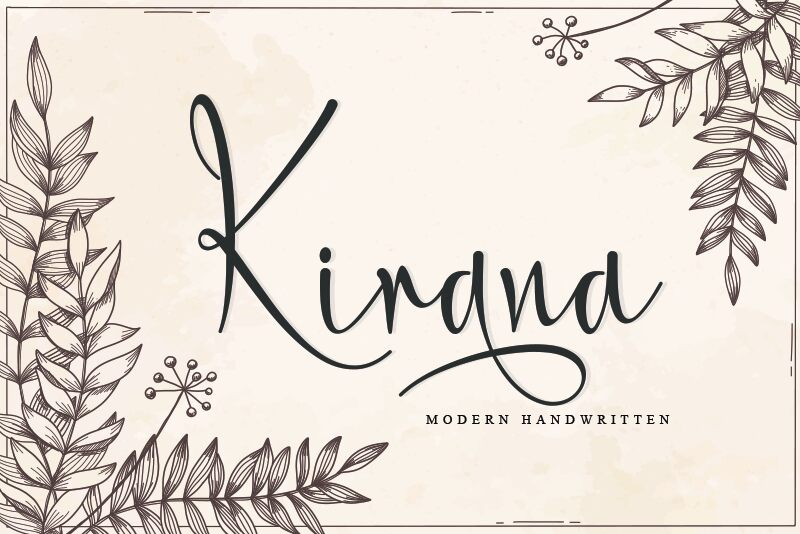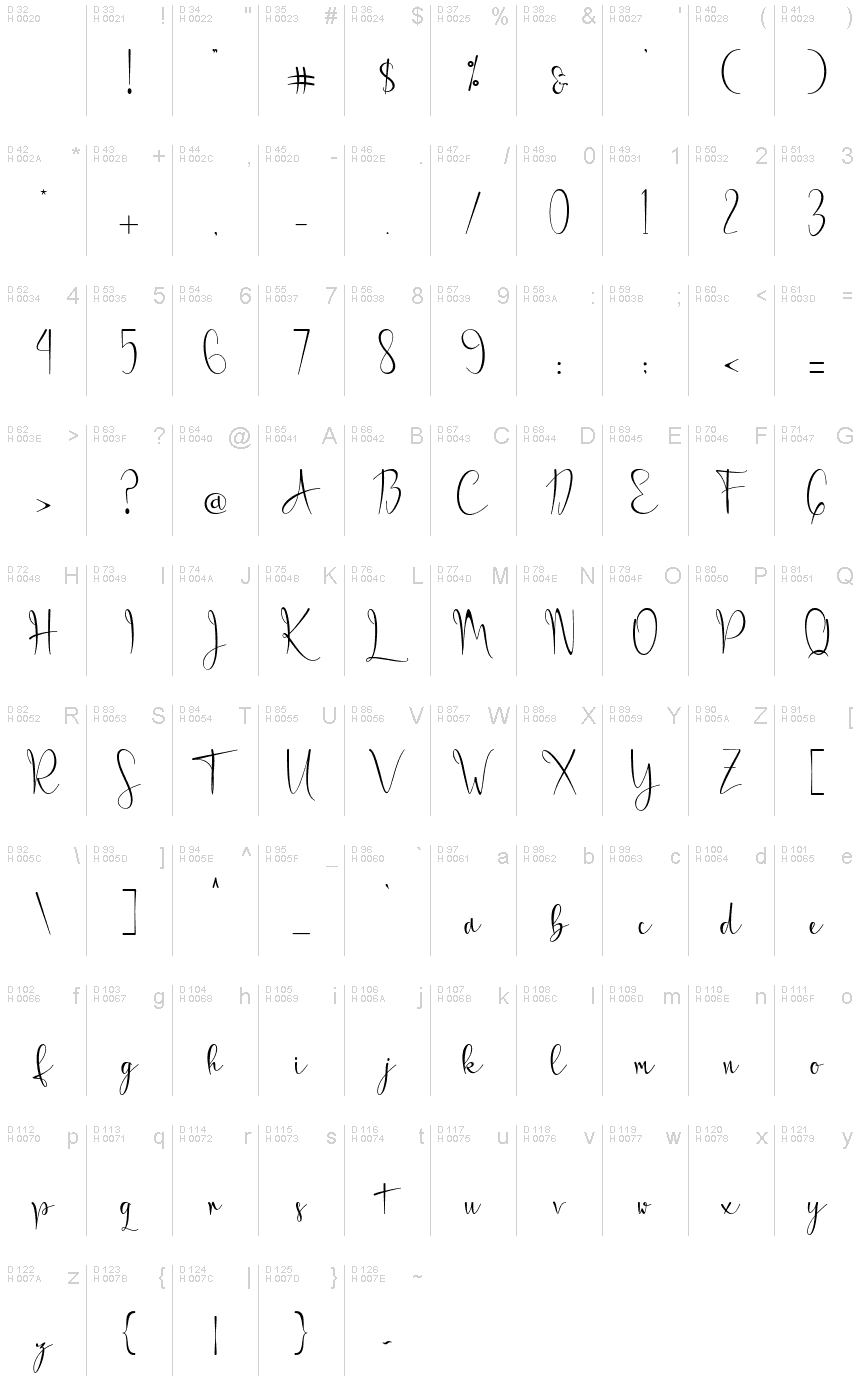
Kirana font by Arkrist Letter is modern handwriting that is designed with great care so as to create very beautiful, and very elegant writing.
Kirana font is perfect for greeting cards, wedding invitations, mockups, etc. because it will add a very beautiful impression and beautify all your best works.